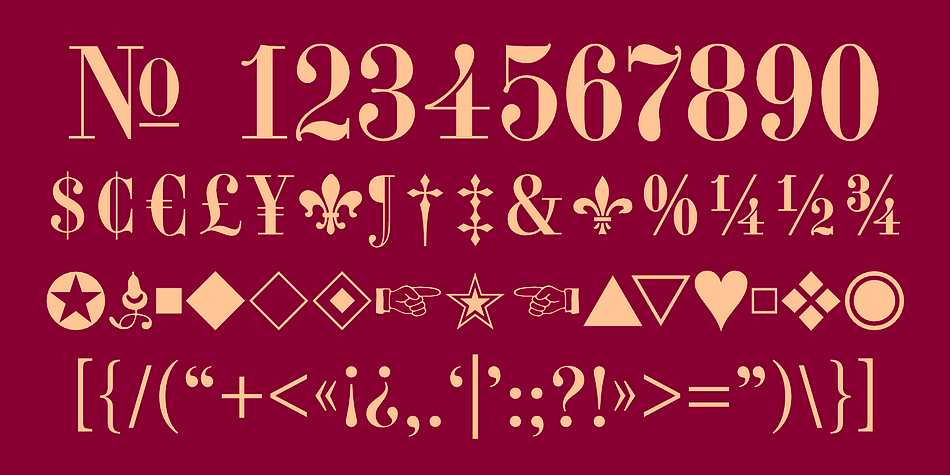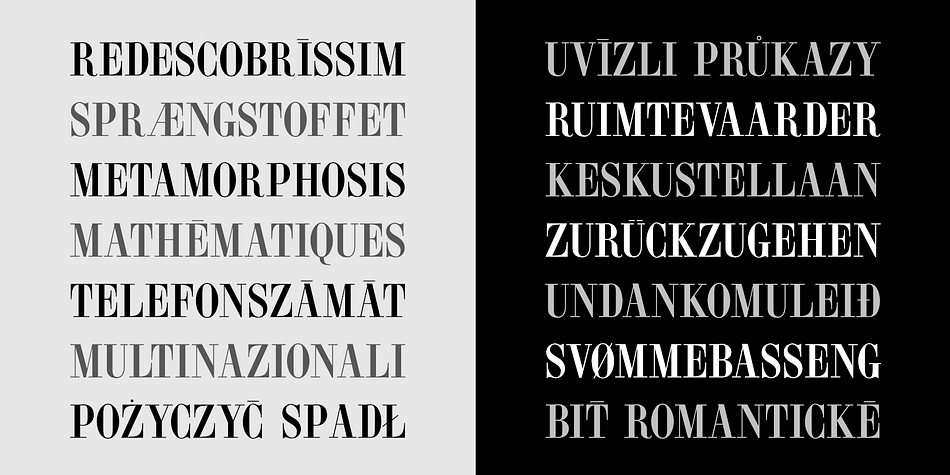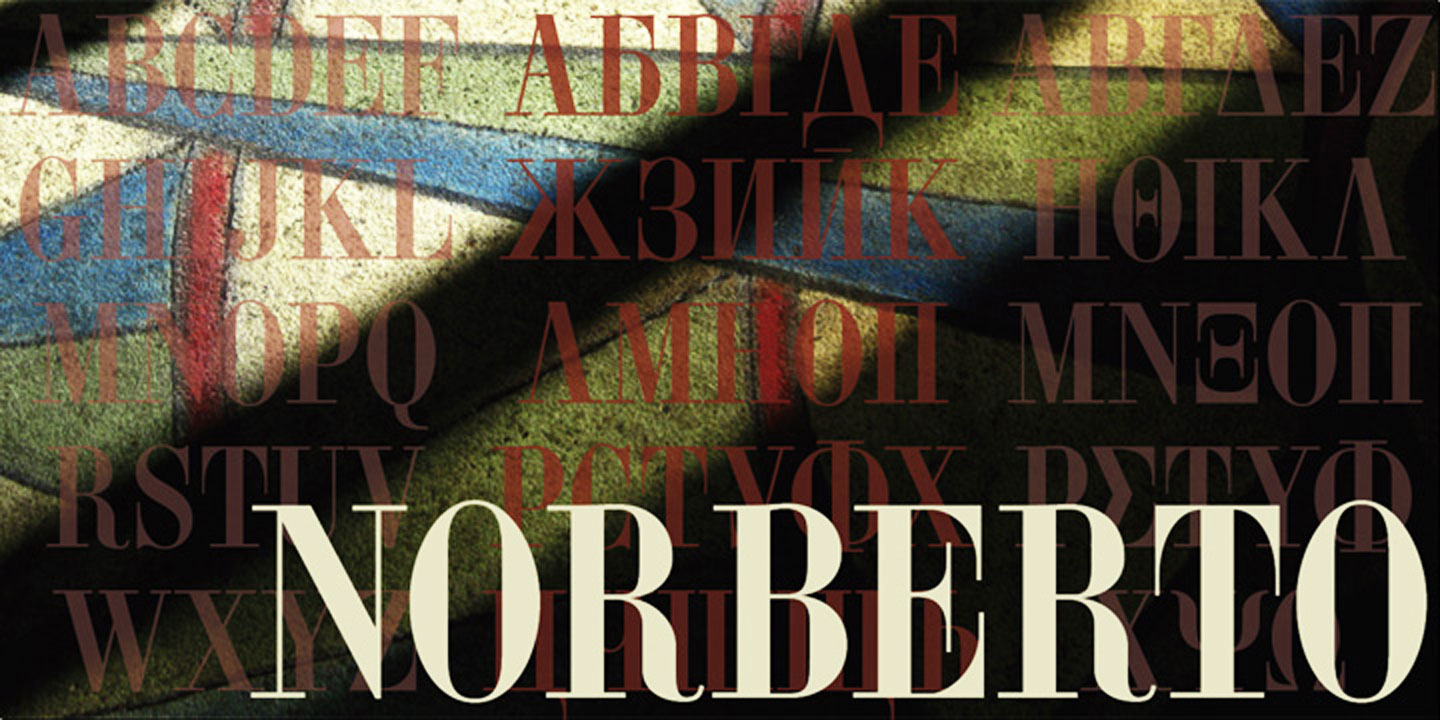
NORBERTO
Norberto is a stencil and display serif font family. This typeface has two styles and was published by CastleType.
Norberto™, a CastleType original, is based on a Russian design from the late 19th century that in turn appears to be based on Bodoni. However, Norberto is a much warmer design than most Bodonis, with many soft touches such as very gentle curves from the serif at the top of B, D, P, and R; a jaunty cap on the ‘A’ (and Cyrillic ‘El’, ‘De’, etc); charmingly quaint numerals; hairline accents, and other subtleties that make it a wonderful addition to the Modern typefaces. In addition to several useful OpenType features, Norberto also offers extensive language support, including modern Greek and most languages that use the Cyrillic alphabet. Now available in both plain and stencil styles.